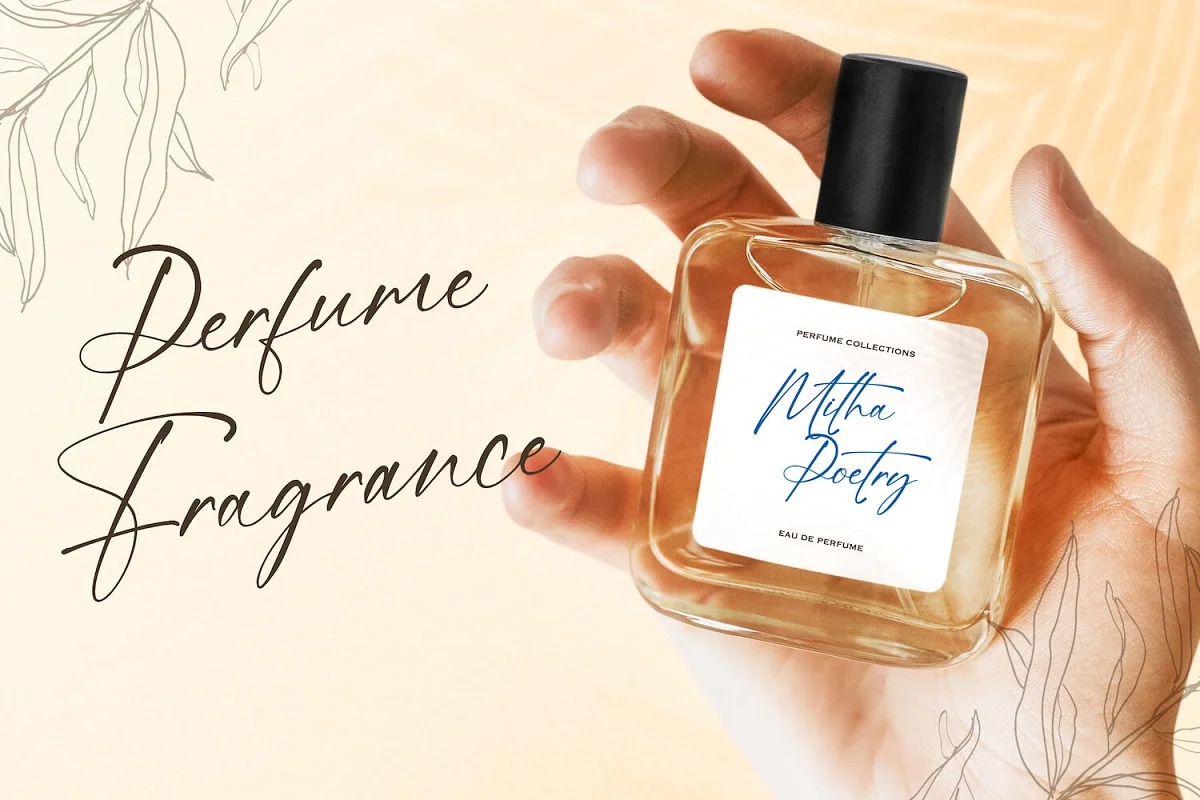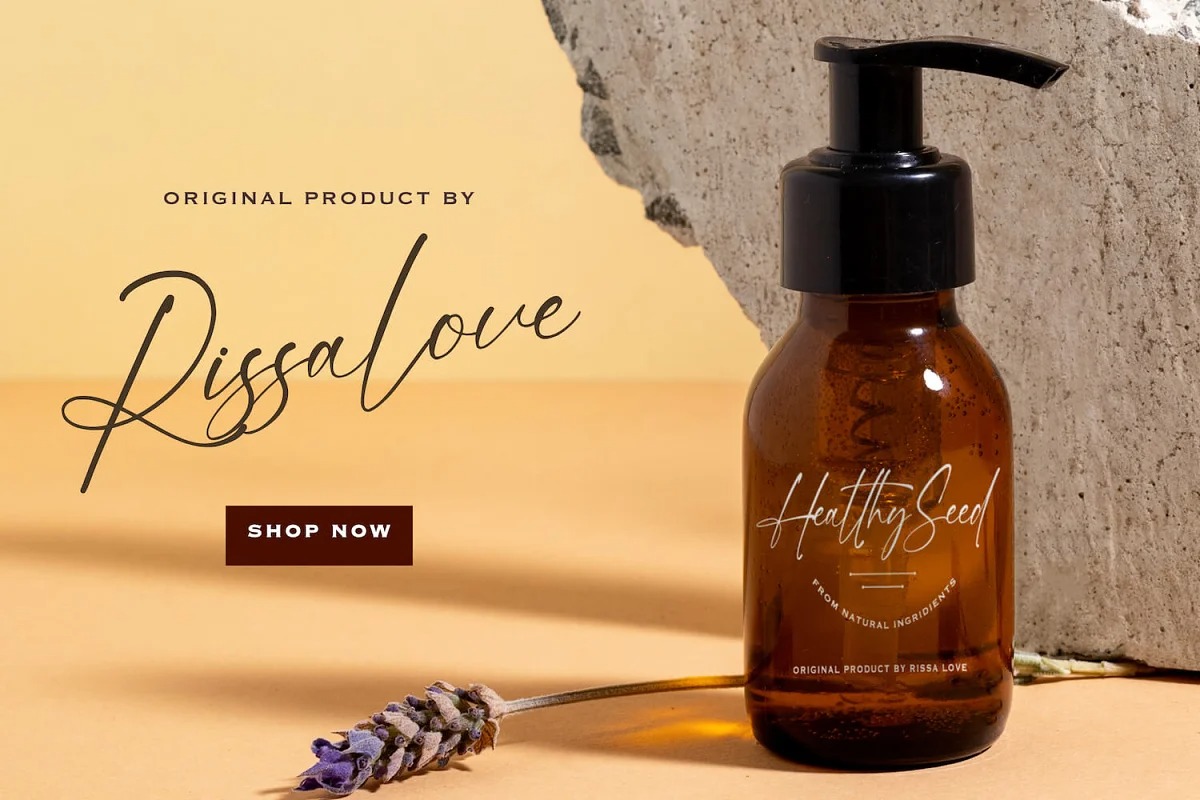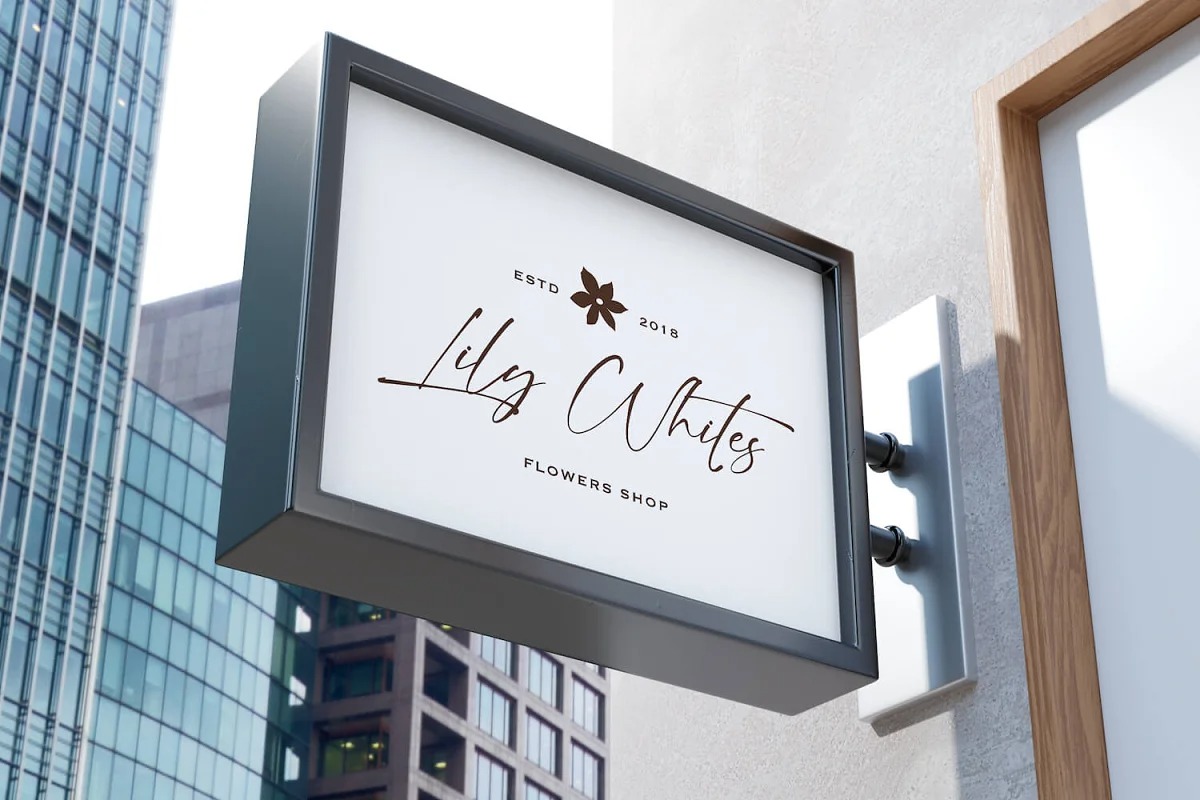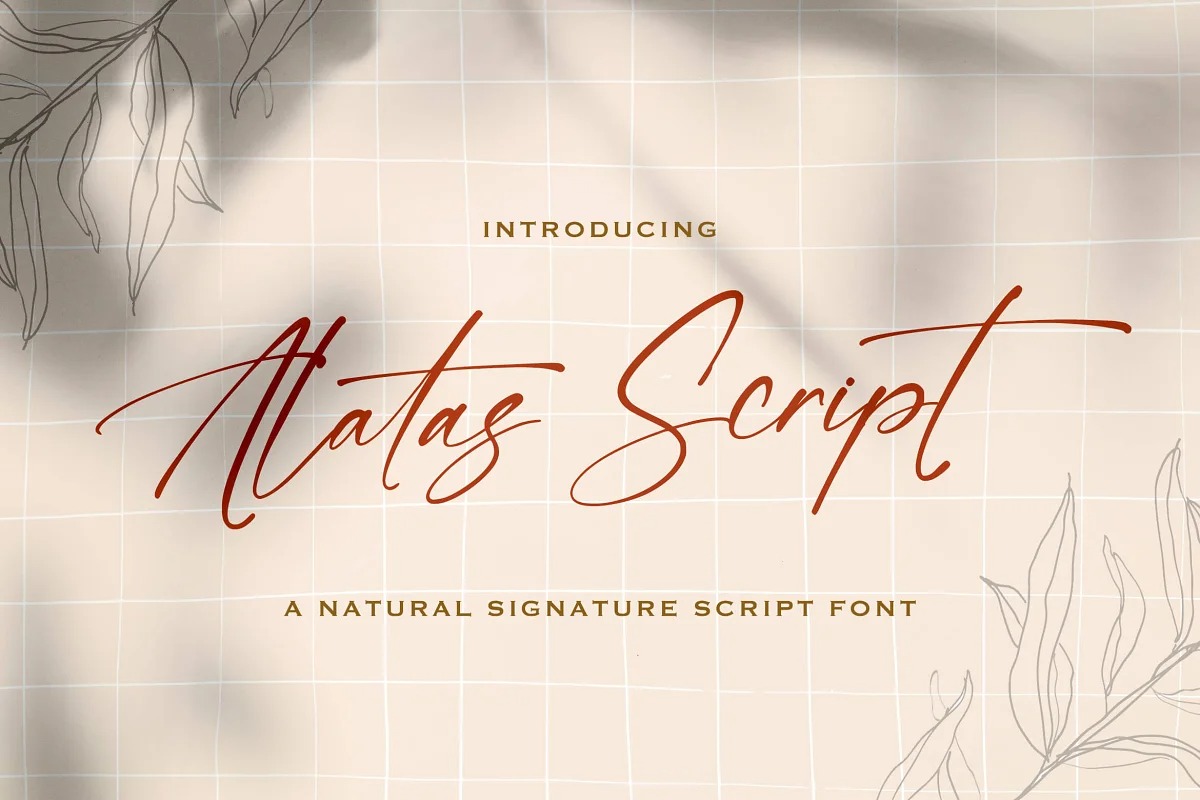
Alatas Script Font is a feminine, but slightly edgy and fun handwritten script typeface. It has beautiful and well balanced characters and as a result, it matches a wide pool of designs. Add it to your most creative ideas and notice how it makes them come alive!